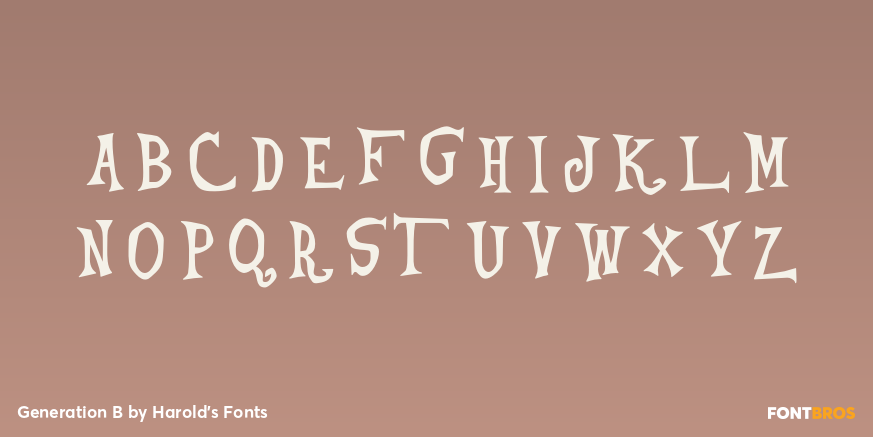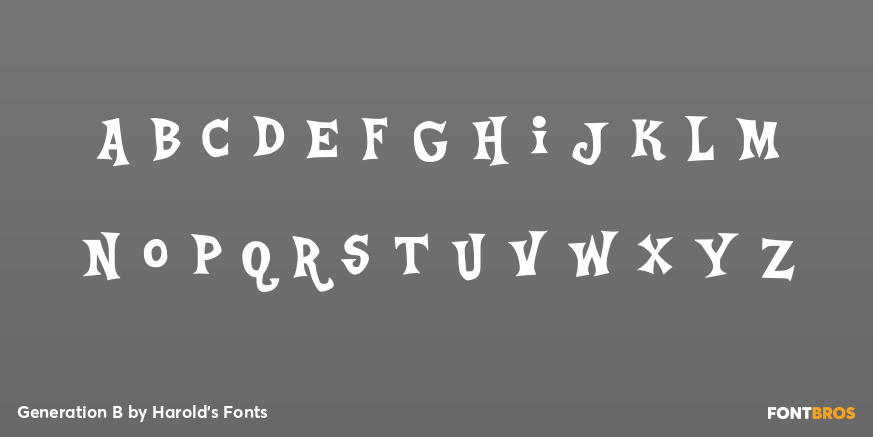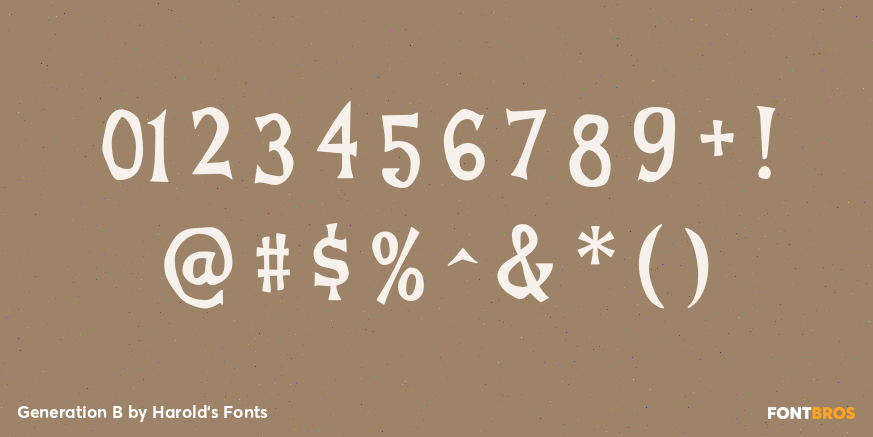
Generation B
Font Family by Harold's Fonts
Playful and offbeat GENERATION B has a late 50s-early 60s vibe that goes from beatnik coffeehouse to rustic beach shack and beyond. It's basically an all-caps font, with big and small versions of each letter plus some alternates, easily giving you the look of quirky hand-lettering.
Inspired by the animated opening titles of the classic live-action Disney film "The Parent Trap" designed by Javier Atencio, T. Hee and Bill Justice.
Generation B was one of the official fonts used in the TV series My Little Pony: Friendship is Magic!